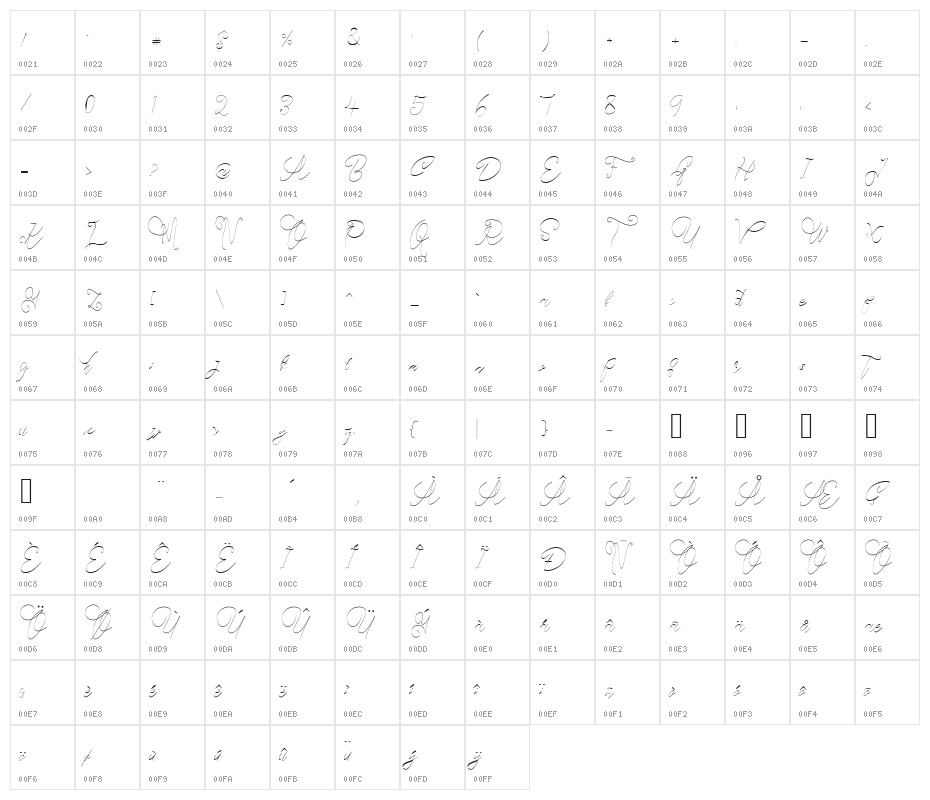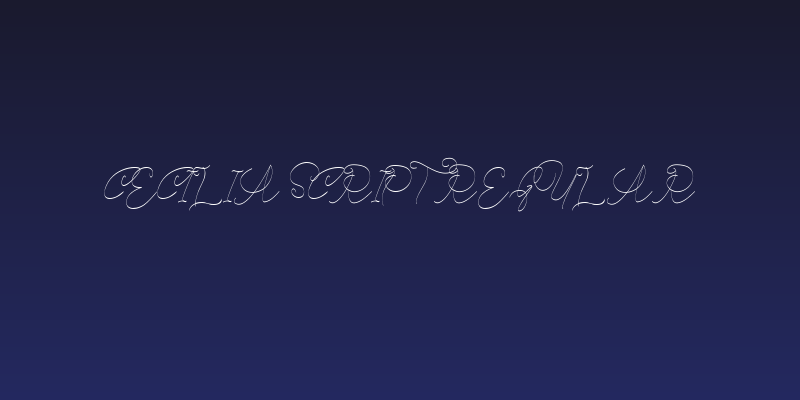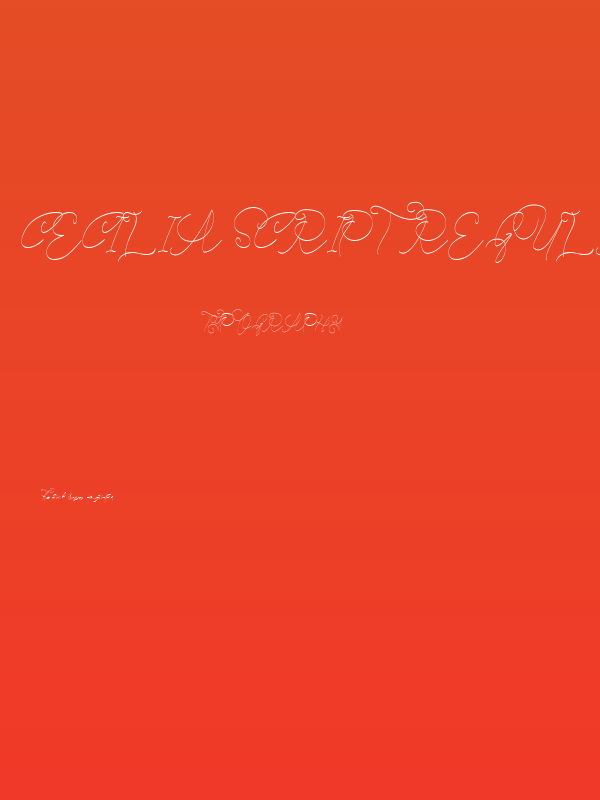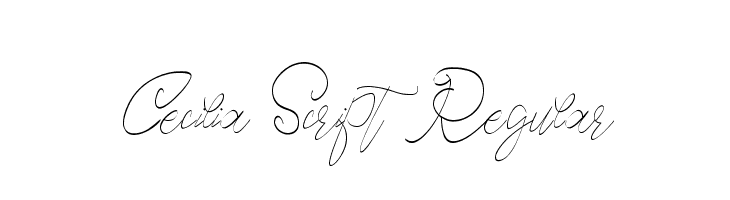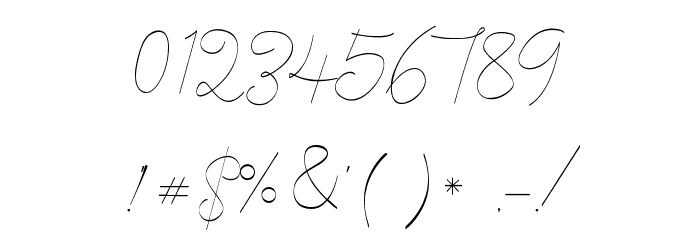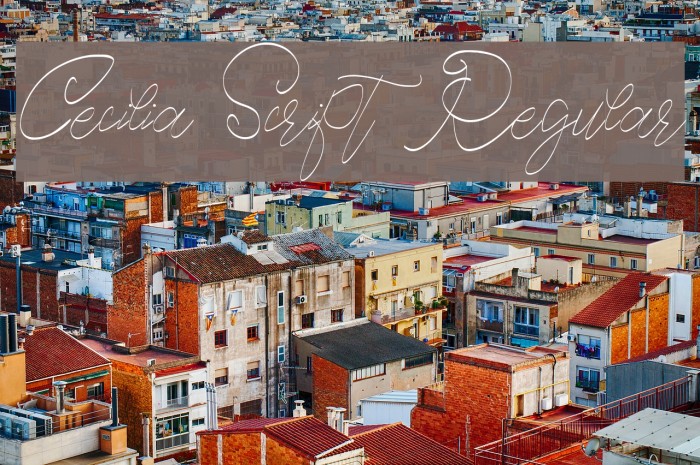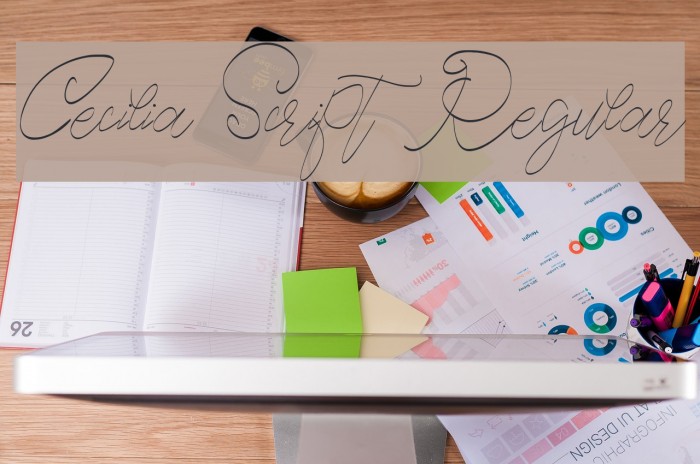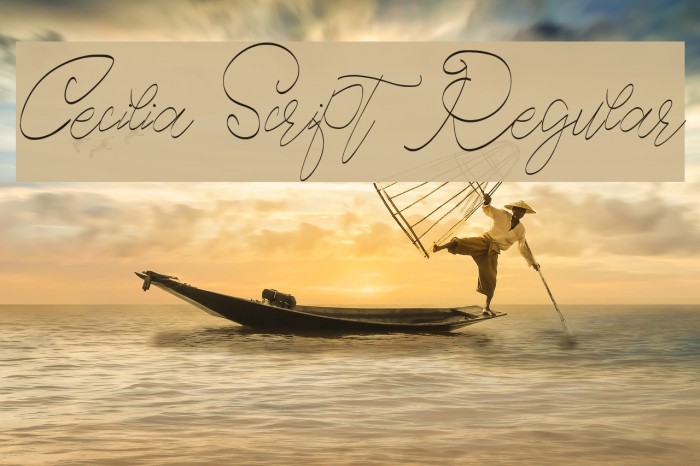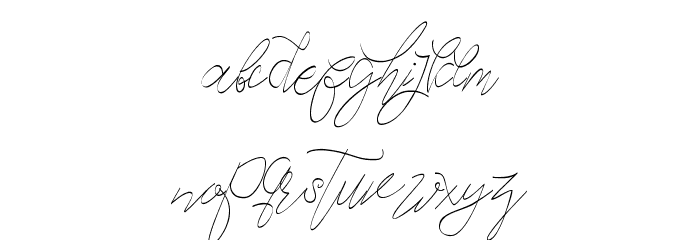
Cecilia Script Regular Font
Cecilia Script Regular Description
This elegant script font features a flowing, cursive style with intricate loops and flourishes. The characters are connected, creating a seamless and sophisticated appearance. The uppercase letters are particularly ornate, with elaborate swirls that add a touch of luxury and refinement. The lowercase letters maintain a consistent flow, enhancing readability while preserving the decorative nature of the font. The numerals are distinct yet harmonize well with the overall script style. Special characters are thoughtfully designed to match the aesthetic, making this font suitable for formal invitations, branding, and artistic projects.